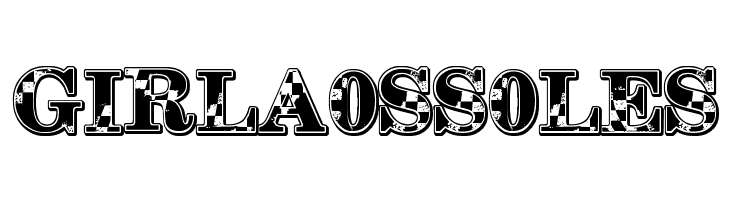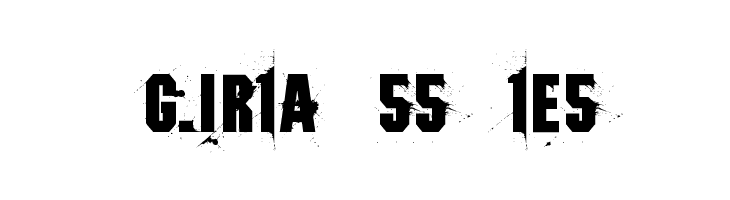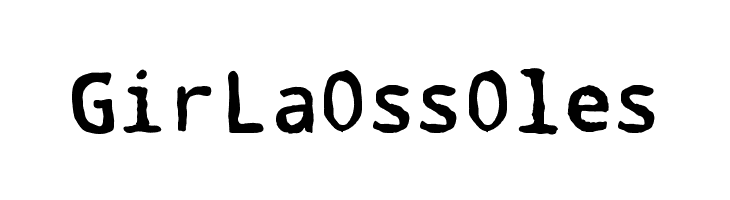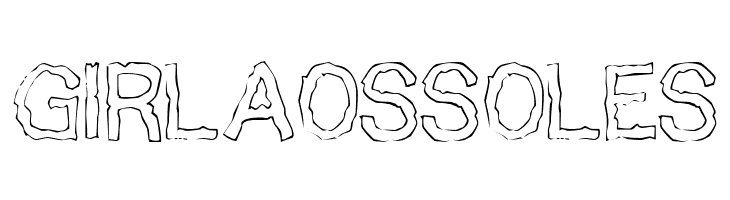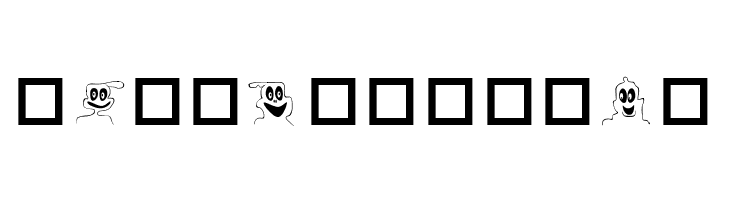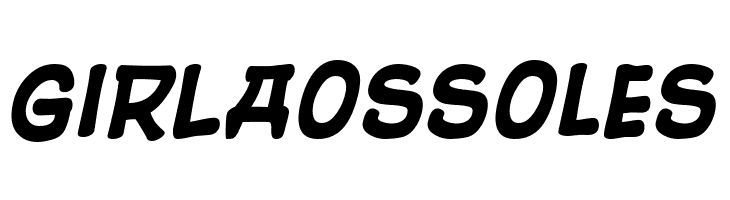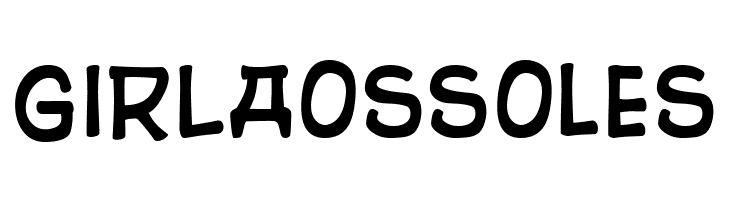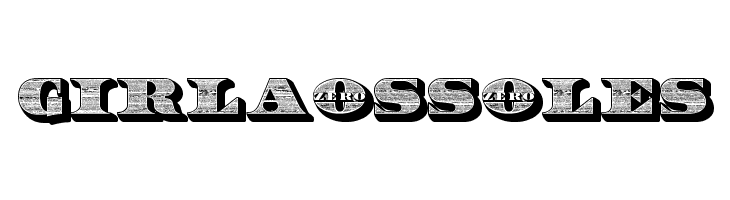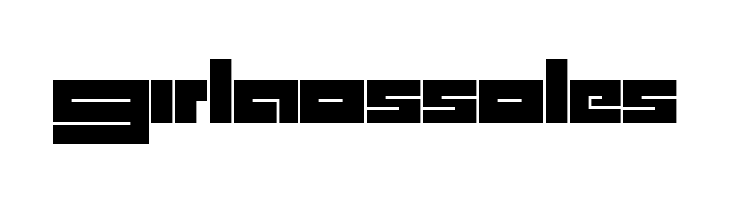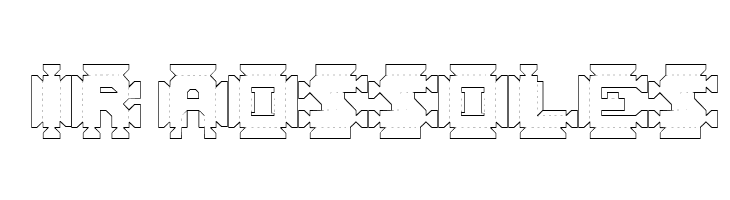
• 1
( Fonts by Christopher Hansen )
A bold, distressed font with a grunge aesthetic and angular, geometric characters.
• 1-2-3 GO!
( Fonts by Jonathan Paquette - www.jonathanpaquette.com )
A bold, decorative font with a distressed, vintage texture and checkered pattern.
• 1:4
• 1. laitos
( Fonts by www.fenotype.com )
A bold, geometric font with a futuristic, digital aesthetic.
• 1.0
( Fonts by Swiftfree Font )
A playful, hand-drawn style font with bold, irregular strokes.
• 10 Bucks
A bold, decorative font with a vintage, engraved appearance and shadow effect.
• 10 Cent Soviet
A bold, playful font with rounded edges and a hand-drawn feel.
• 10 Cent Soviet Bold
A bold, retro-style font with rounded, slanted characters.
• 10 Lil' Ghosts
• 10 Minutes
A hand-drawn, sketch-like font with irregular, jagged edges.